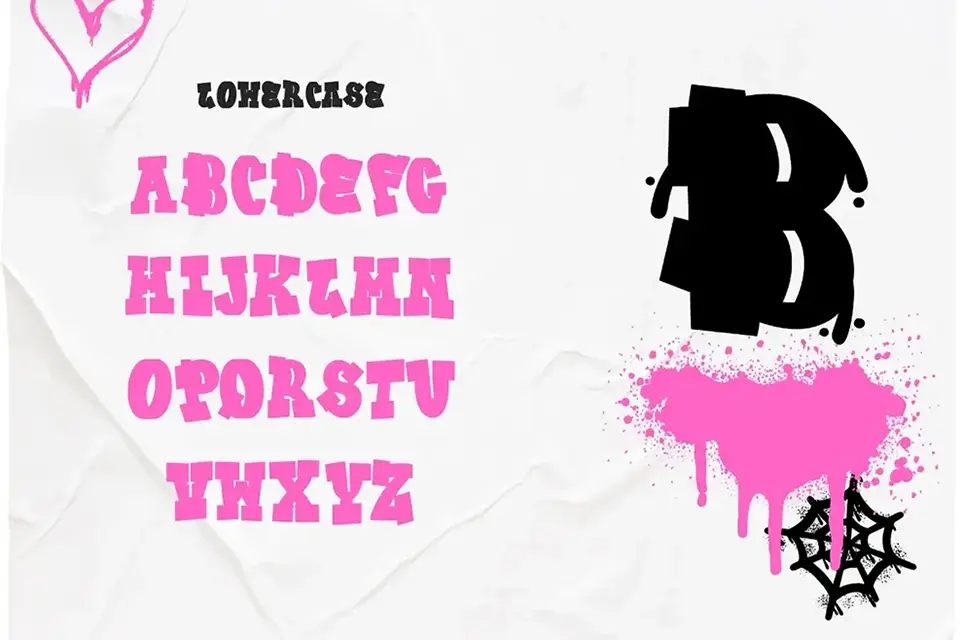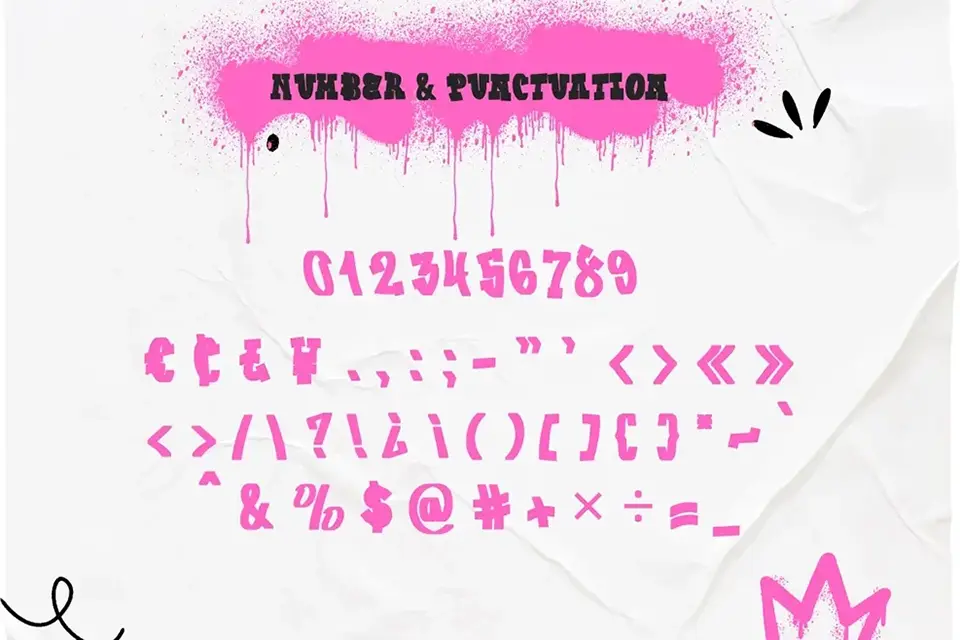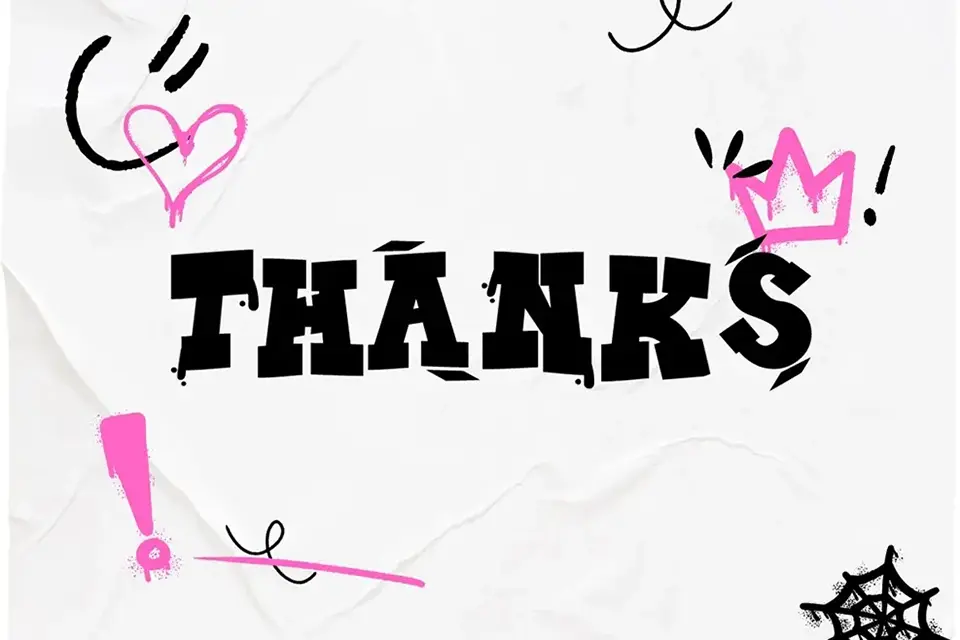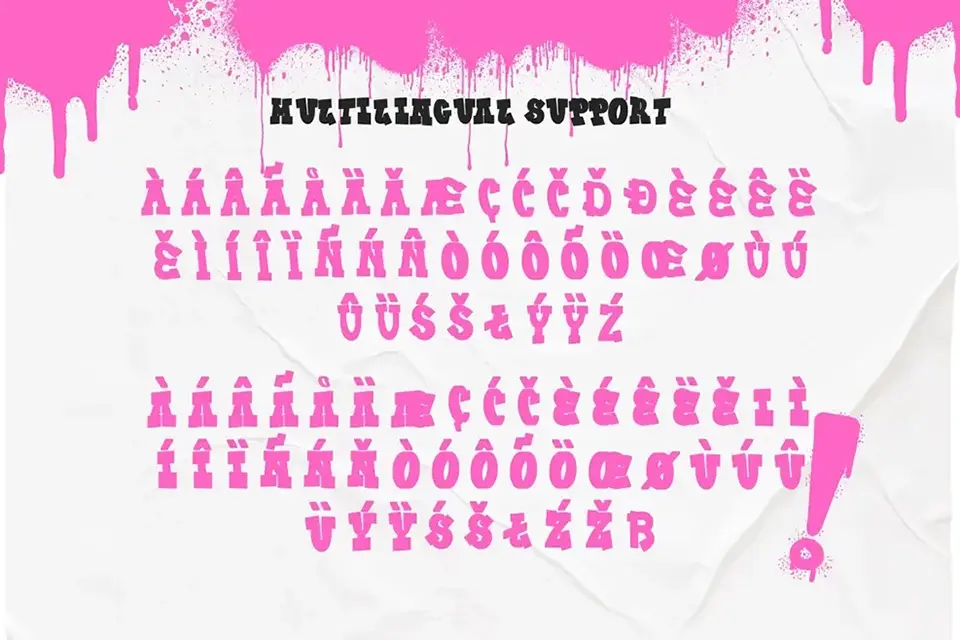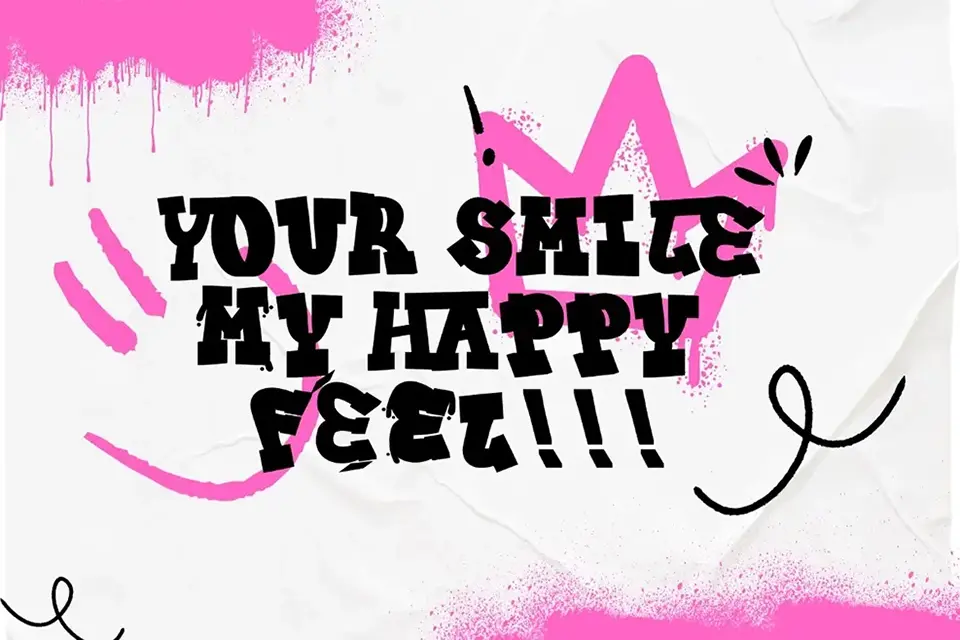
Psycho Waller Font
Psycho Waller is a bold graffiti script typeface featuring chunky, inky letterforms with jagged edges, warped contours, and scuffed cutouts that evoke street art aesthetics. Its loud, bouncy rhythm maintains legibility while delivering raw energy. Ideal for streetwear logos, album art, skate and punk flyers, gaming thumbnails, sticker packs, and bold packaging. The typeface shines at oversized headline scale with tight tracking, creating impressive visual impact. For body copy, pair it with a geometric sans serif to maintain focus.